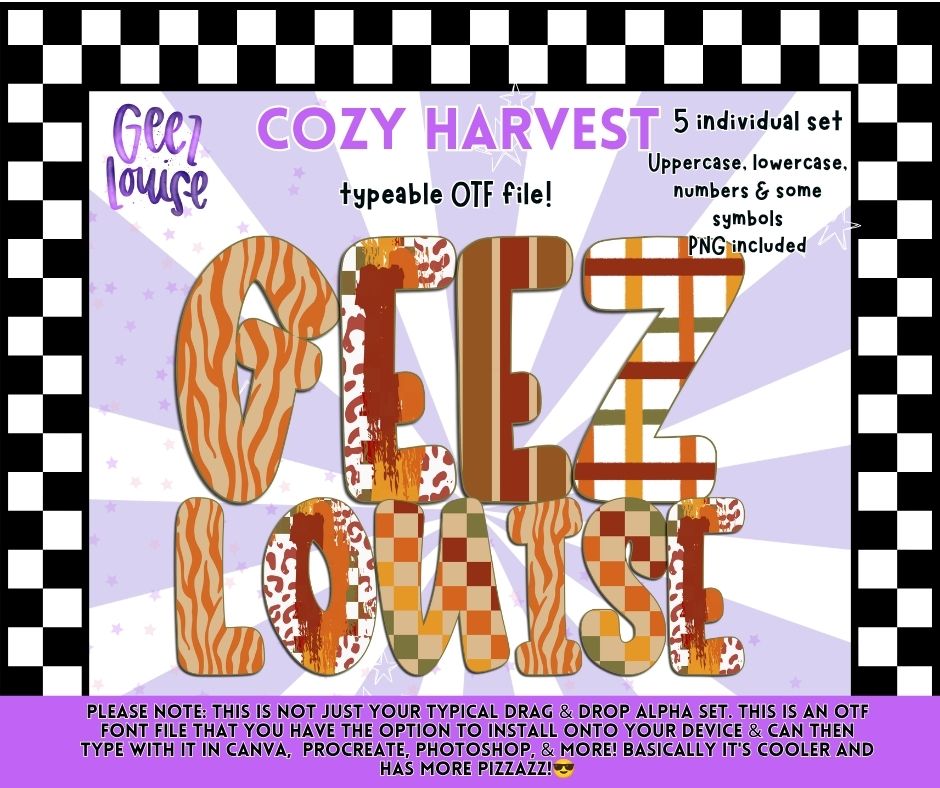
Cozy Harvest OTF Font | Fall Pattern Alphabet | Typeable Font & PNG Alpha Set
ππ€ Celebrate sweater weather with Cozy Harvest, a warm and inviting typeable OTF font featuring five coordinating fall-inspired pattern alphabets! Packed with cozy harvest tones, retro textures, checker patterns, zebra, plaid, and grunge accents, this font is perfect for all your autumn creations.